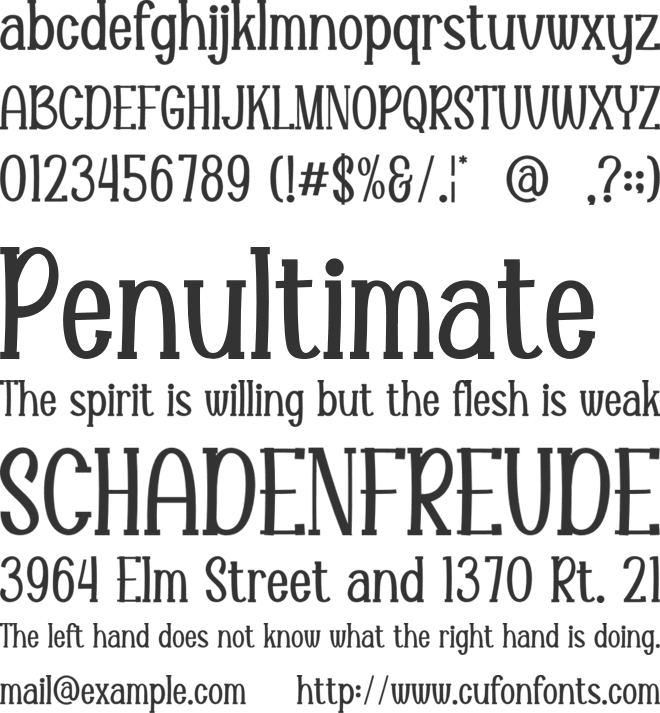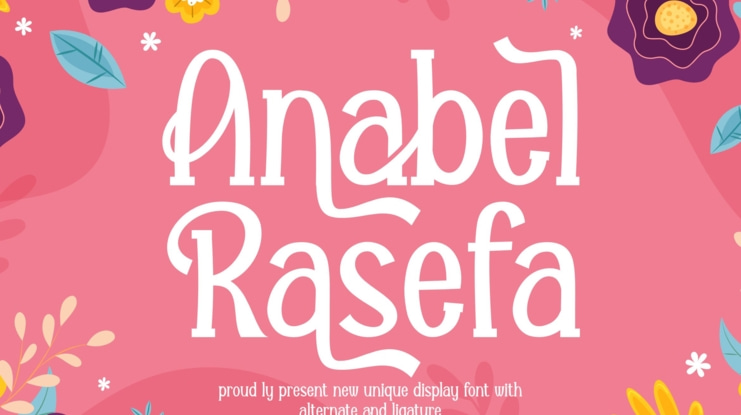
Anabel Rasefa Font
Introducing Anabel Rasefa Is the new cartoon Display Font is a modern, trendy, bouncy and cute display font. It has a unique character with wood theme. It is perfect to be combined with invitation card designs, company logos, movie titles, movie names, business cards, book titles, brand names and various other designs.